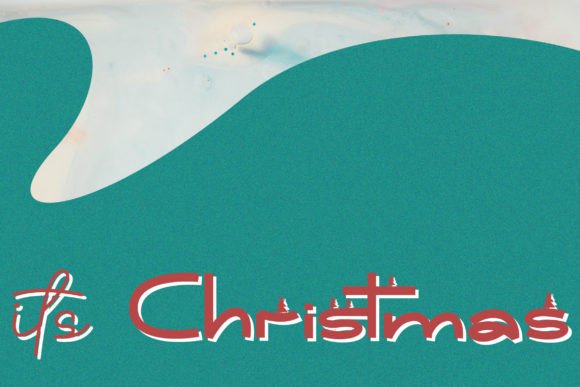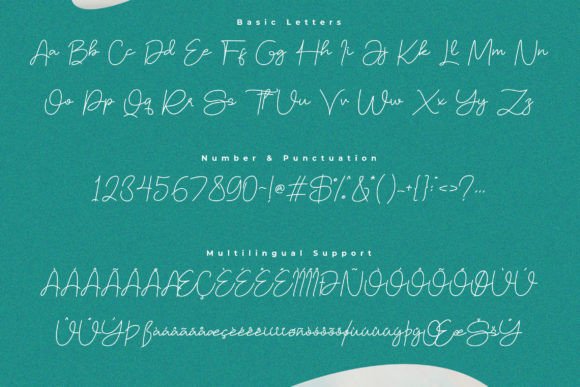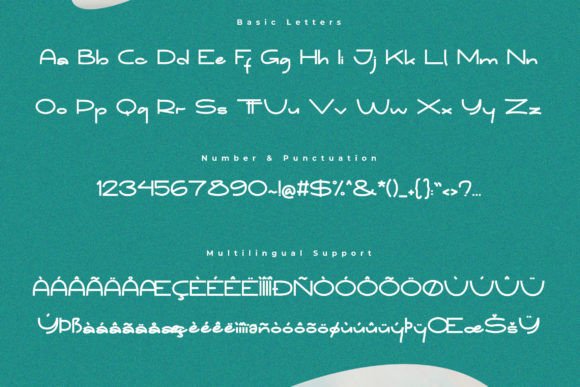
Introducing Clausbere Font: The Ultimate Duo for Stunning Graphic Design
In the world of graphic design, typography plays a crucial role in creating visually appealing and effective designs. A well-chosen font can elevate your brand’s identity, convey your message, and leave a lasting impression on your audience. If you’re a designer, crafter, or simply a creative enthusiast, you’re in luck! Today, we’re excited to introduce you to the Clausbere Font, a remarkable duo of display and script fonts that will take your designs to the next level.
What is Clausbere Font?
Clausbere is a thoughtfully crafted duo of fonts that are designed to be paired together, creating a harmonious and balanced look. This versatile font combination consists of a display font and a script font, making it an ideal choice for a wide range of design applications, from wordmarks and logos to handicrafts, branding, and more.
Key Features of Clausbere Font
- Pairing Perfection: The display and script fonts are carefully crafted to complement each other, creating a beautiful and cohesive look.
- Stylish Alternates: With dozens of stylish alternates, you can add a touch of elegance and sophistication to your designs.
- Ligatures: The font features ligatures, which help to create a smooth and flowing text, perfect for titles, headings, and body text.
- Versatility: Clausbere Font is suitable for a wide range of design applications, from graphic design and branding to handicrafts and more.
Why Choose Clausbere Font?
With so many fonts available, why should you choose Clausbere Font? Here are just a few reasons:
- Unique and Eye-catching: The Clausbere Font duo offers a distinctive and attention-grabbing look that will set your designs apart from the crowd.
- Time-saving: With its extensive range of stylish alternates and ligatures, you can create stunning designs quickly and efficiently.
Design Applications for Clausbere Font
The versatility of Clausbere Font makes it suitable for a wide range of design applications, including:
- Graphic Design: Use Clausbere Font to create stunning visual designs, such as brochures, posters, and business cards.
- Branding: Establish a strong brand identity with Clausbere Font, perfect for logos, wordmarks, and more.
- Handicrafts: Add a touch of elegance to your handmade crafts, such as jewelry, textiles, and paper crafts.
- Digital Design: Use Clausbere Font in your digital designs, such as website headers, social media graphics, and email marketing campaigns.
Tips for Using Clausbere Font
To get the most out of Clausbere Font, here are a few tips:
- Experiment with Pairings: Try pairing the display and script fonts in different ways to find the perfect combination for your design.
- Play with Alternates: Use the stylish alternates to add visual interest and create a unique look.
- Keep it Simple: Don’t be afraid to keep things simple and use the font as a clean and elegant solution.
In conclusion, Clausbere Font is a powerful duo of display and script fonts that will elevate your graphic design, branding, and handicrafts to new heights. With its stylish alternates, ligatures, and versatility, this font combination is a must-have for designers and crafters alike. So why wait? Download Clausbere Font today and start creating stunning designs that will leave a lasting impression on your audience.